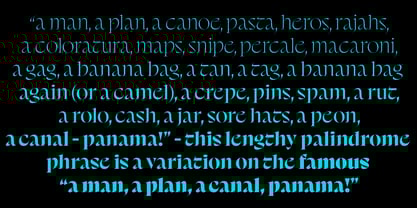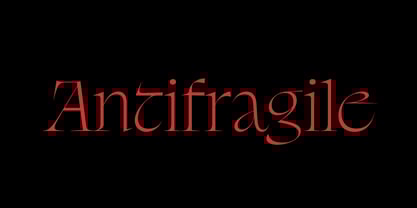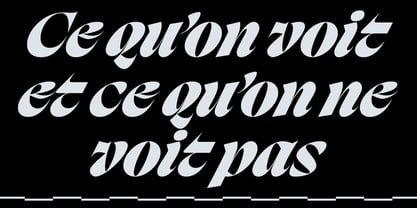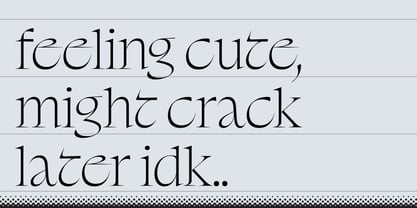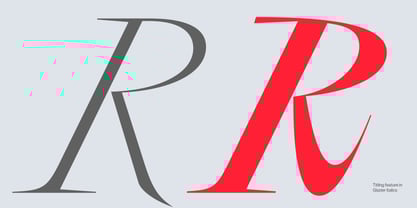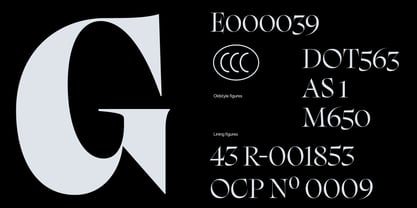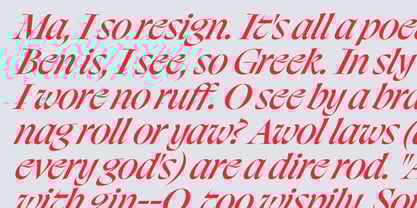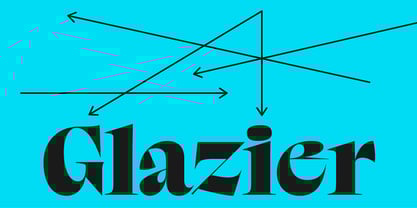
Glazier
by Positype
The Glazier Font Family was designed by Potch Auacherdkul and published by Positype. Glazier contains 10 styles and family package options.
Glazier's typographic research delves into the origins of the Latin script, emphasizing the evolution of lowercase letters and the significance of serifs. Through exploration of the Caroline minuscule and the refinement of serifs, Glazier embodies these typographic discoveries. The hand-drawn serif typeface captures a semi-formal essence, striking a balance between crispness and warmth.